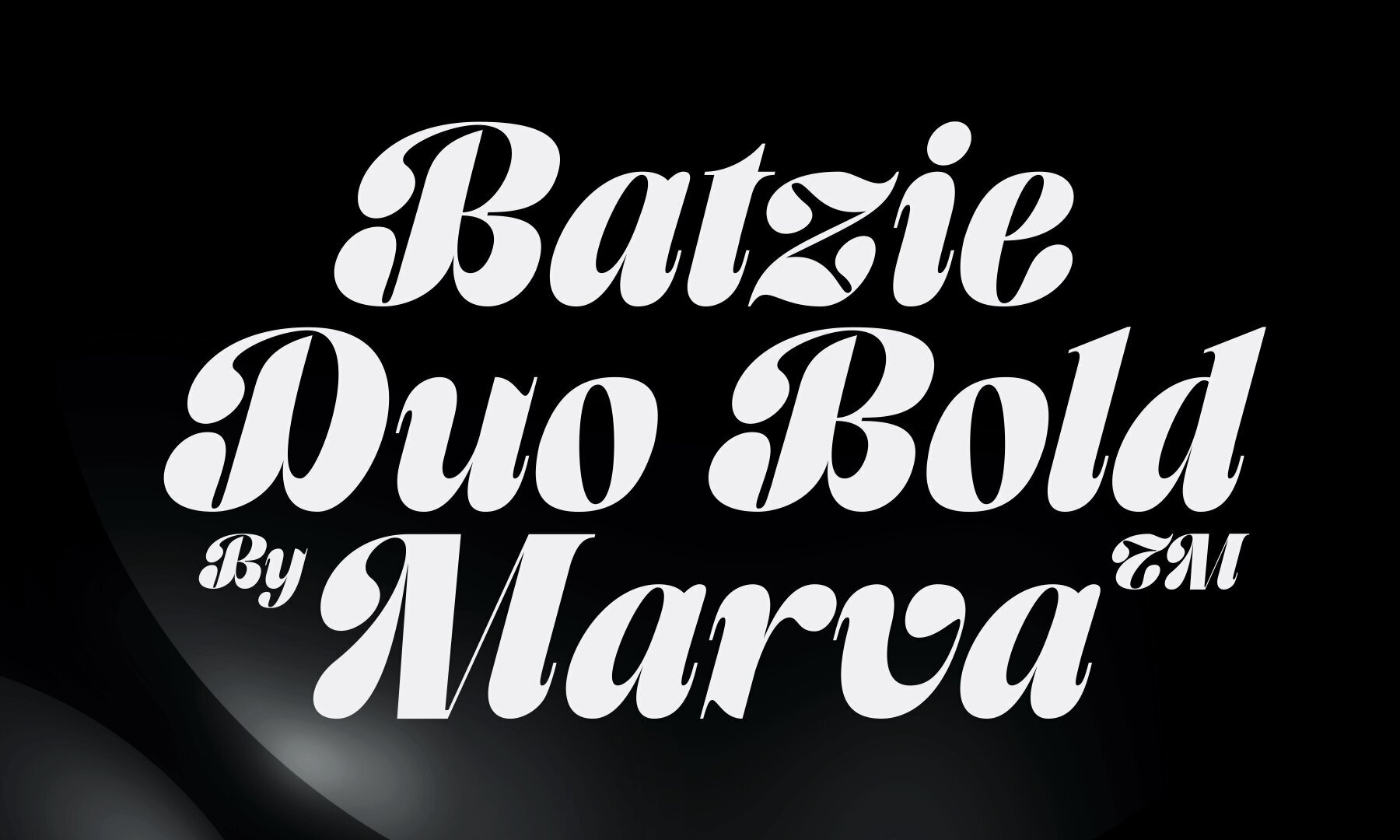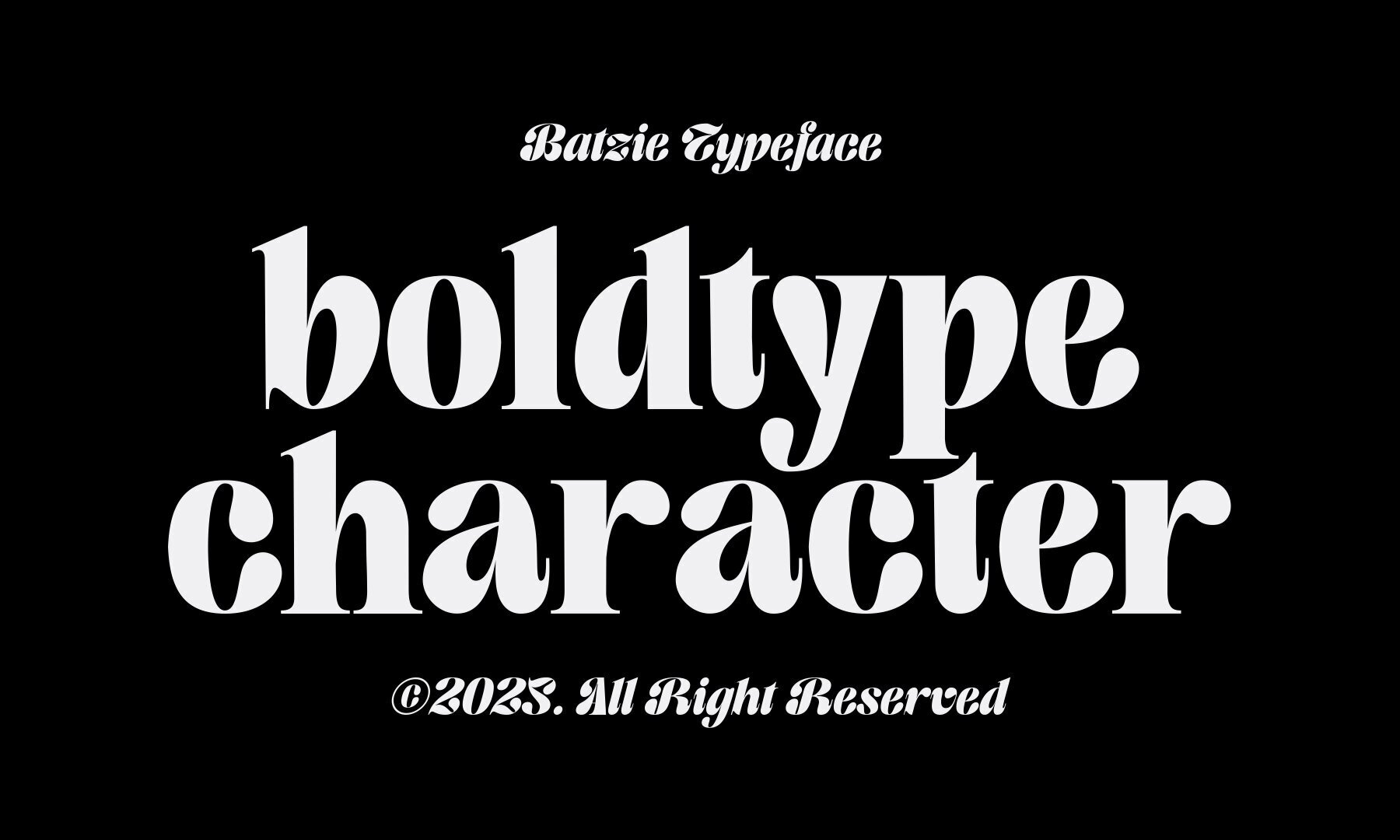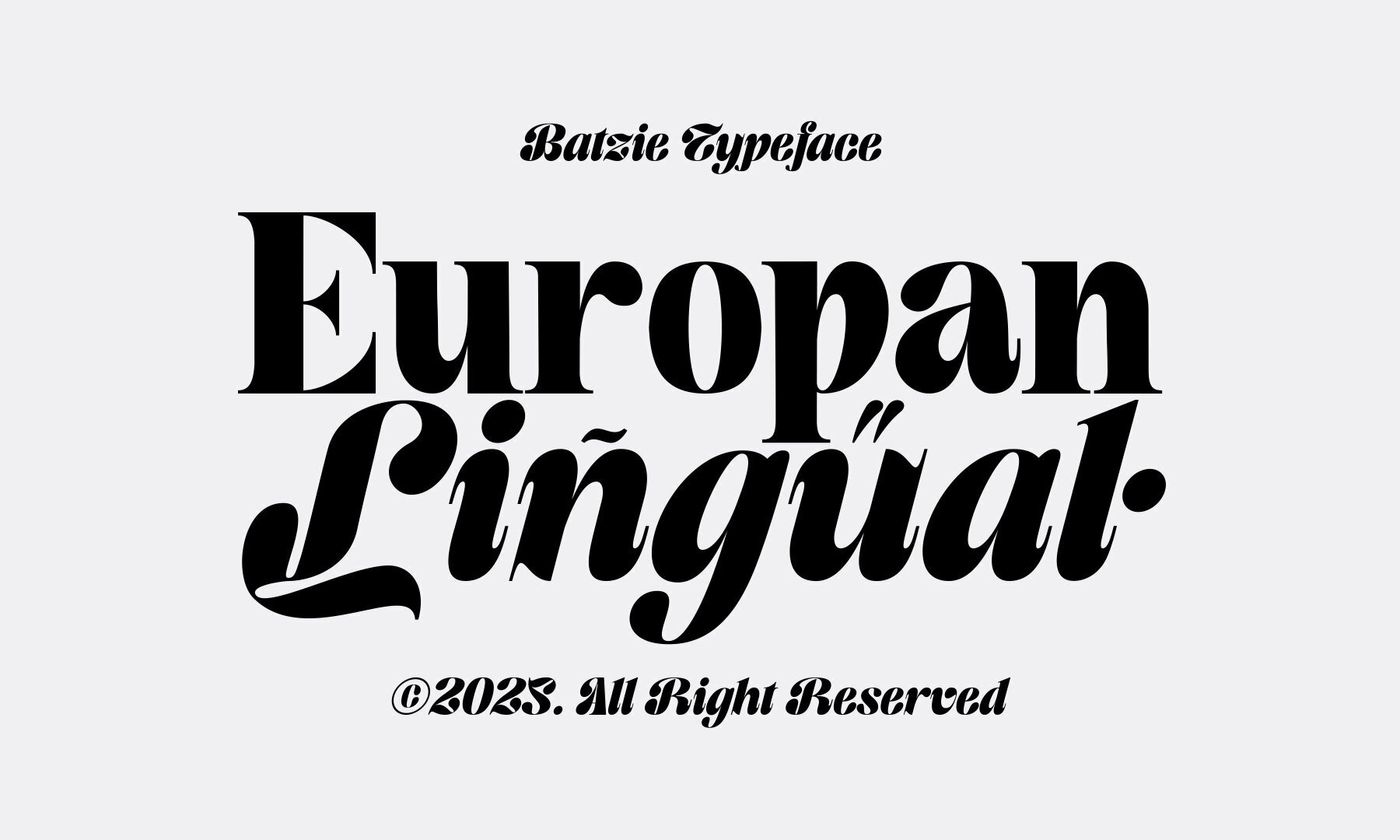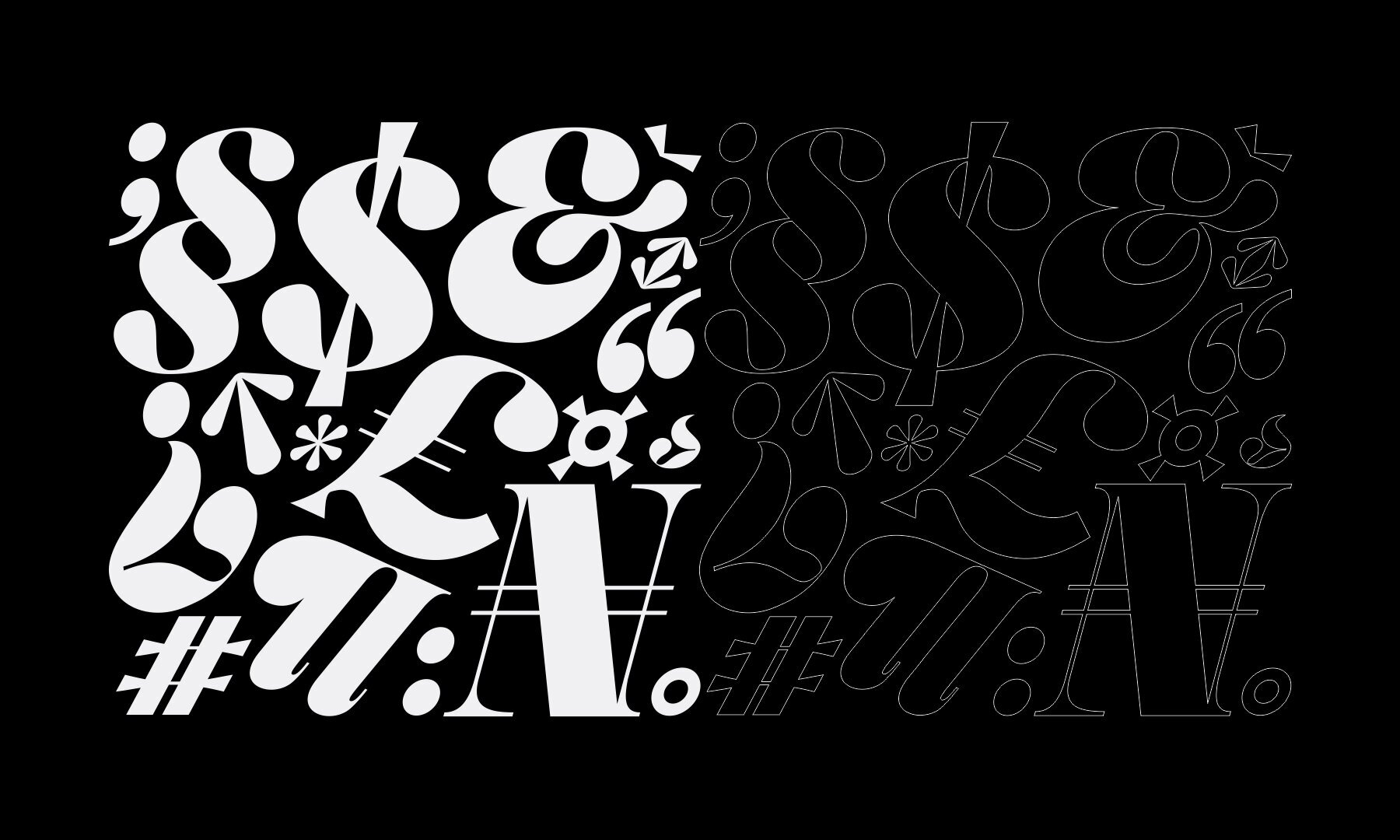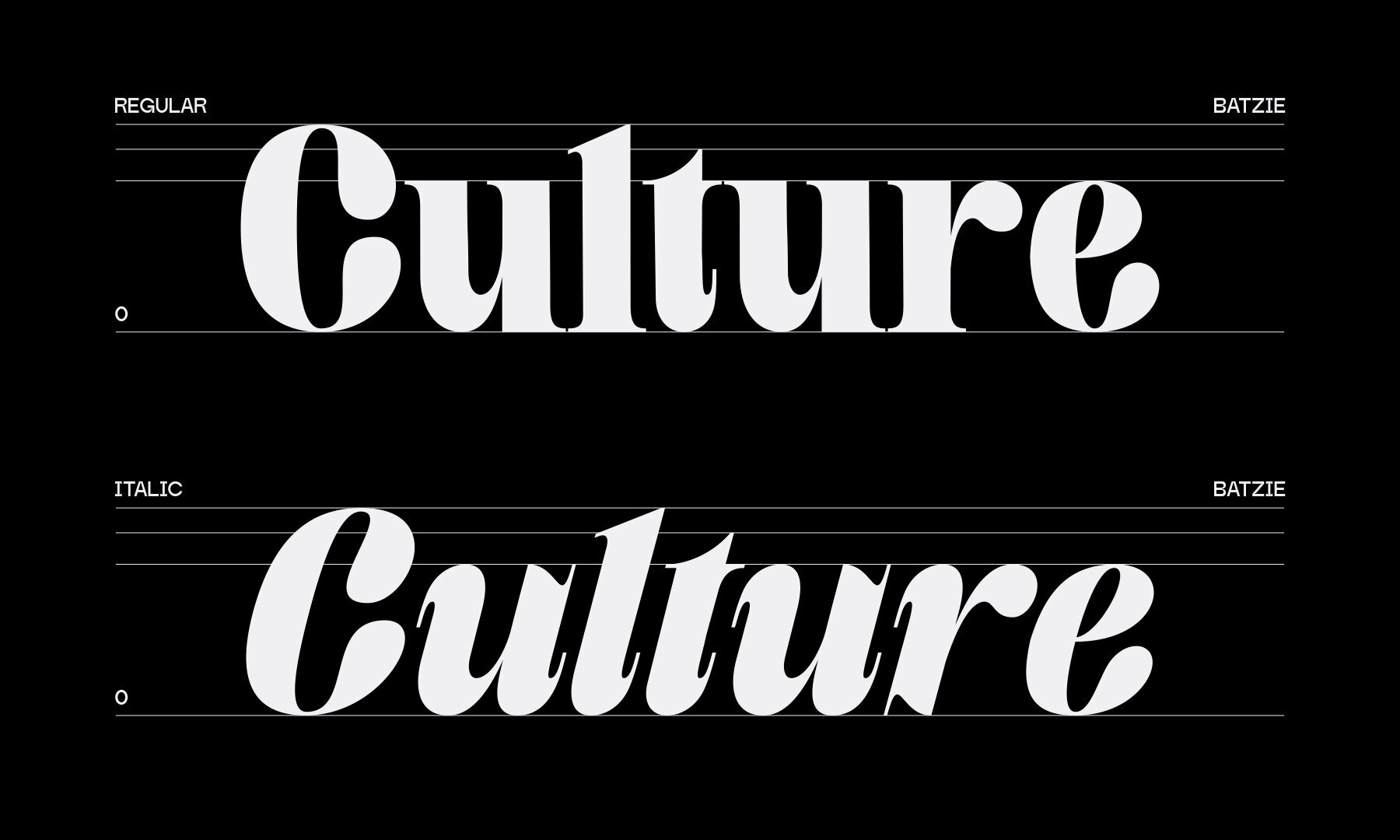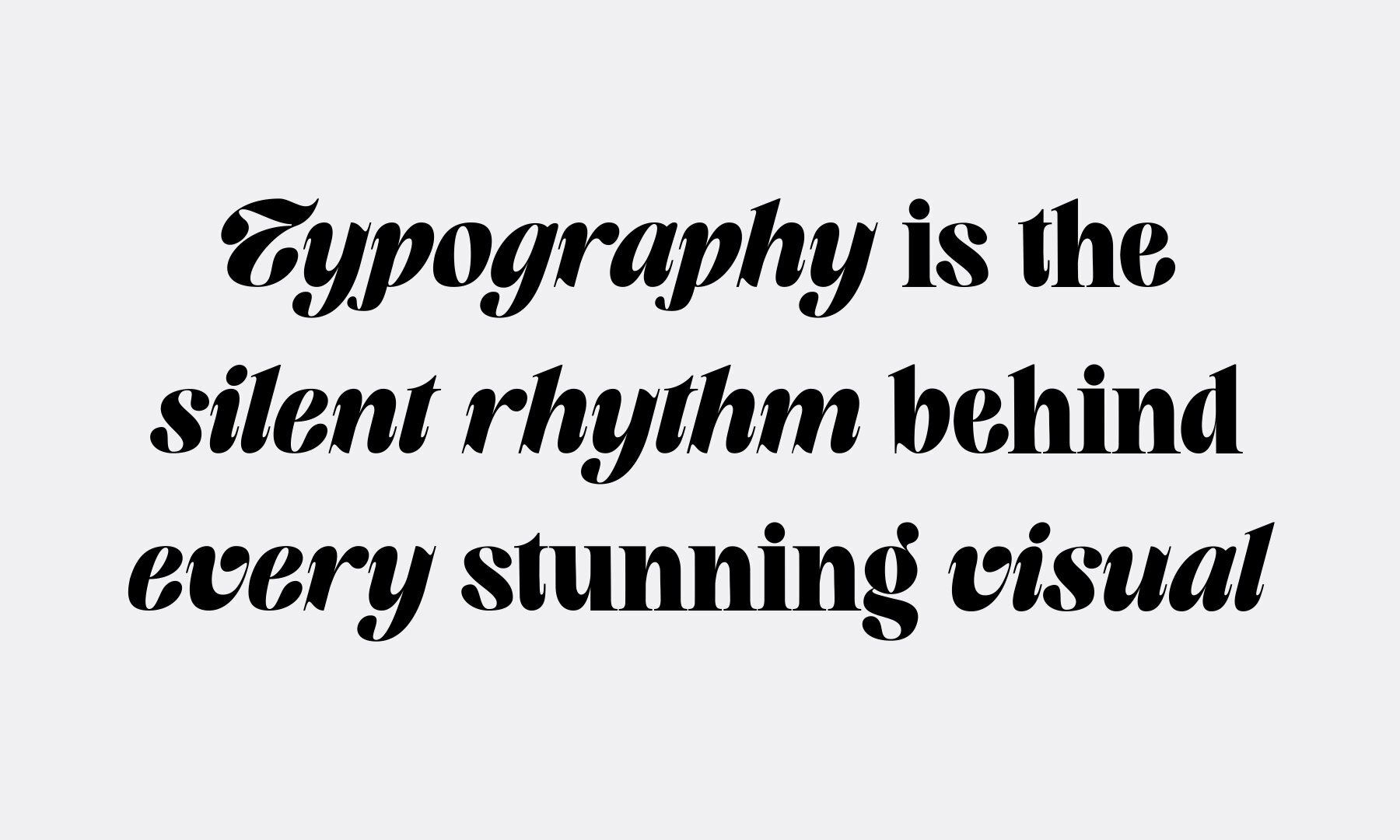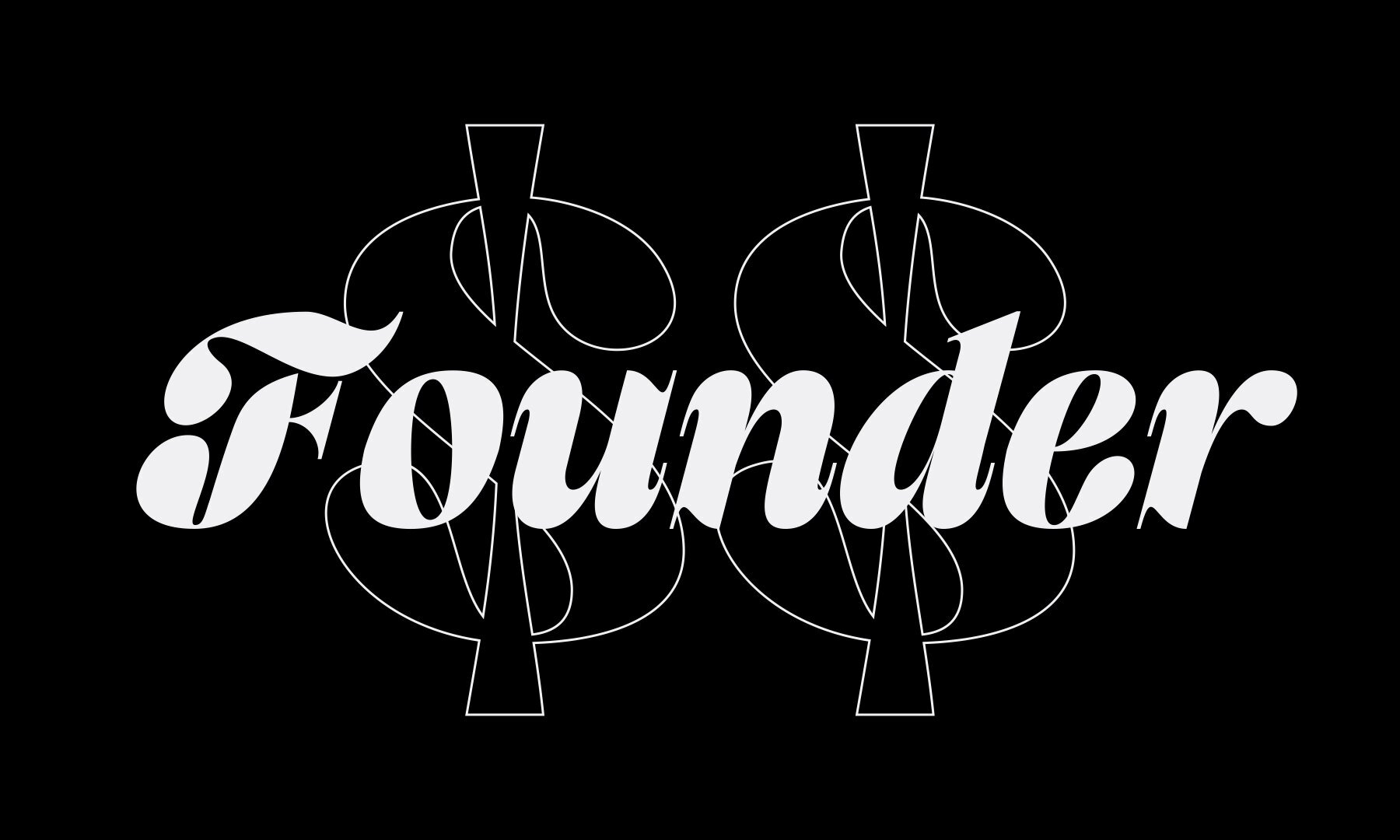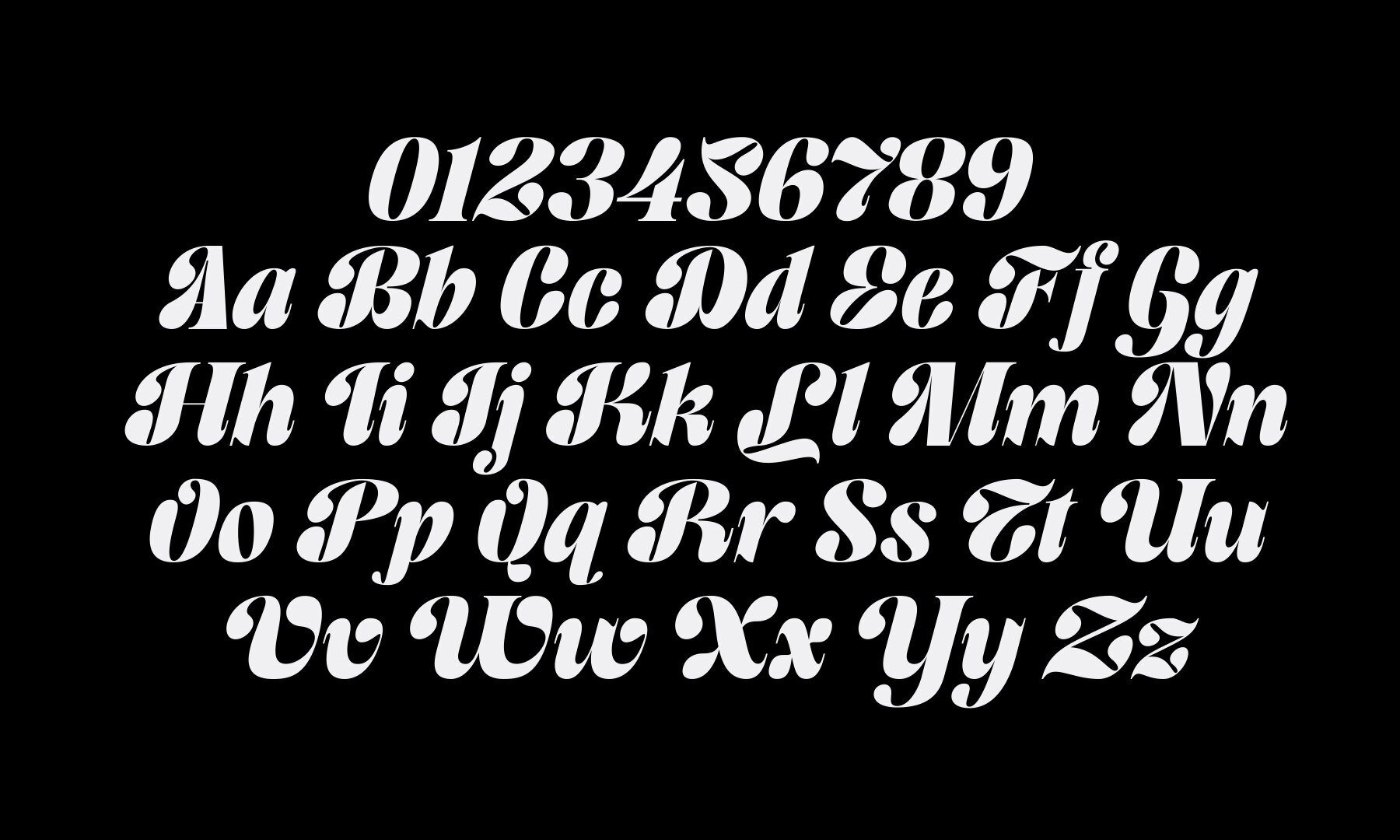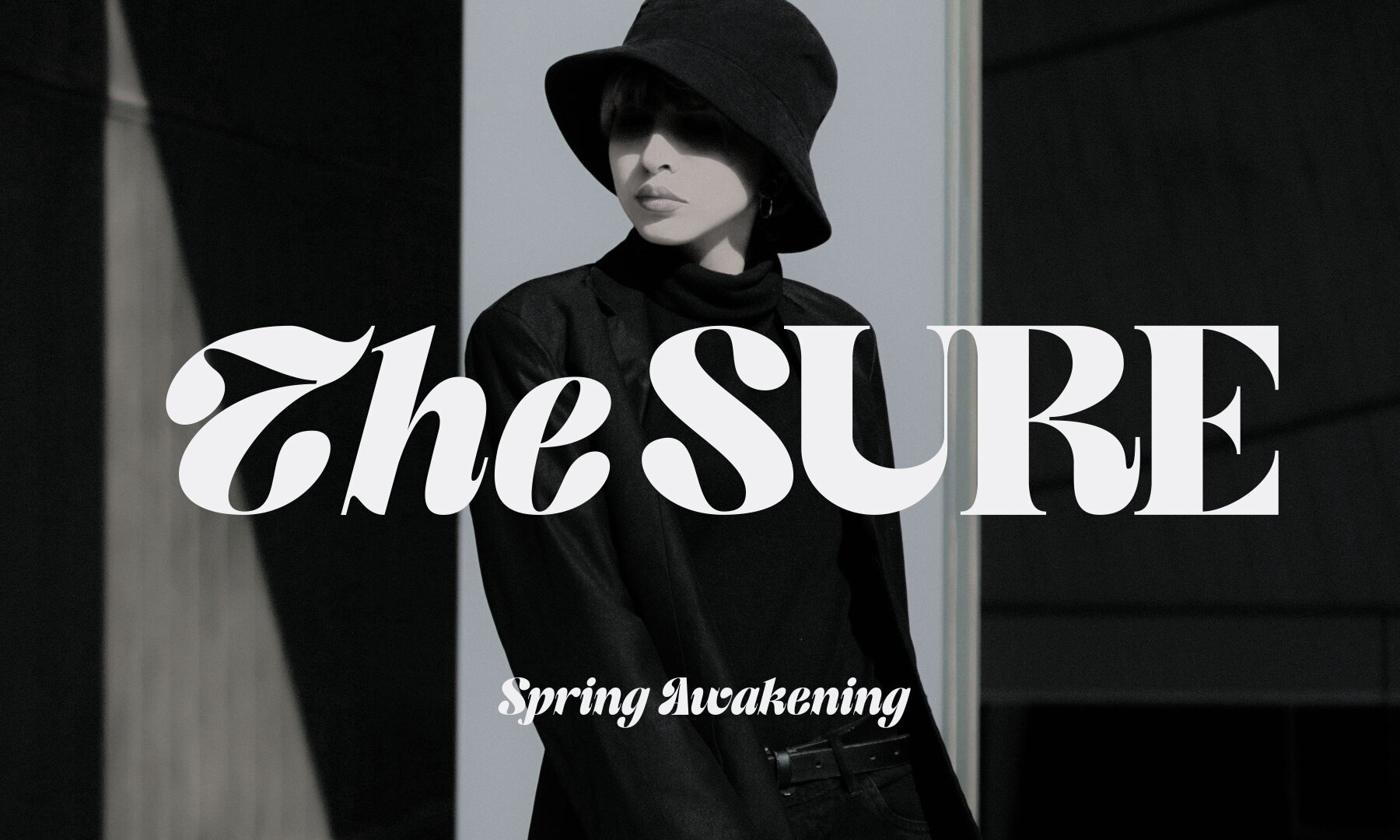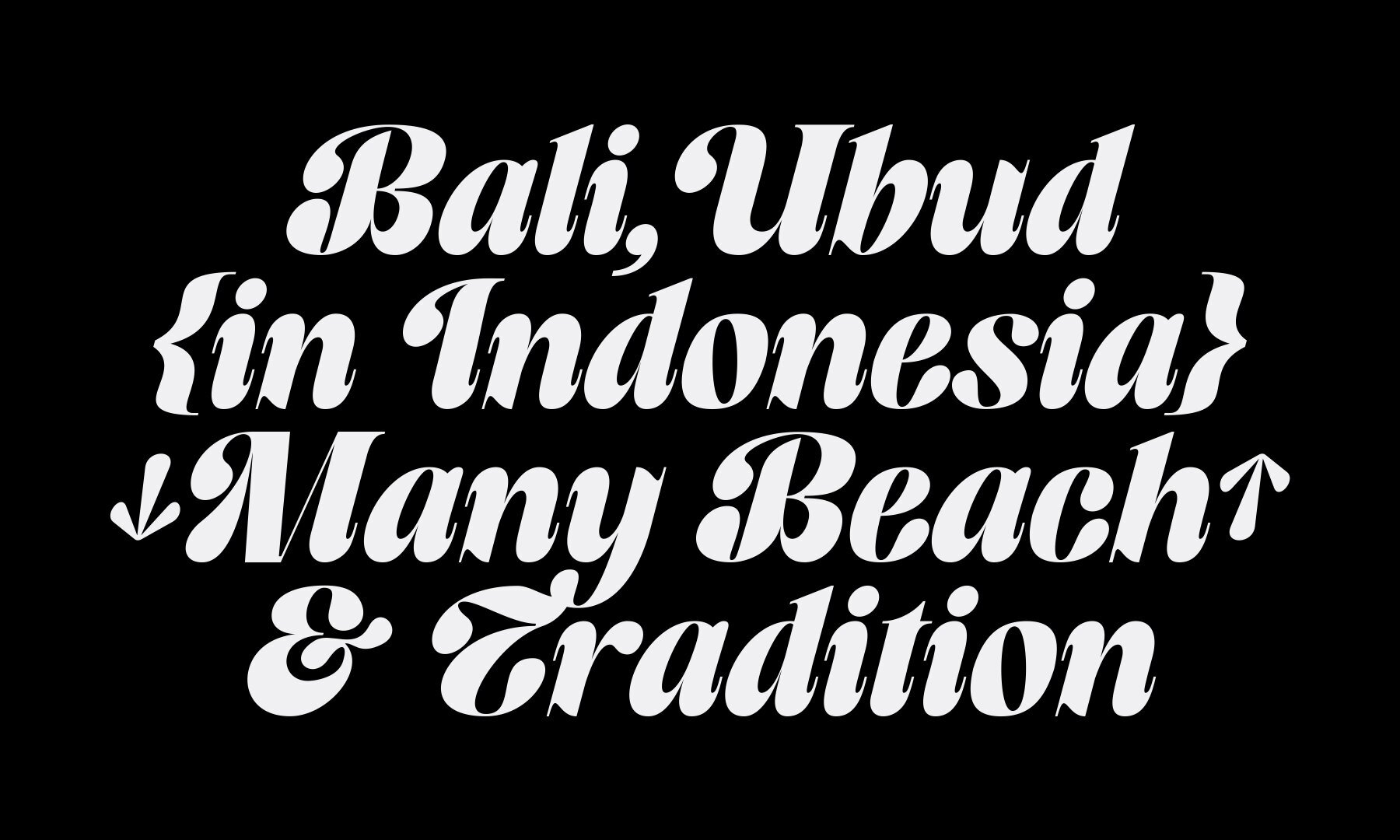
Batzie Font
Batzie offers a contemporary take on the classic serif display font. Its elegant and feminine aesthetics come through in flowing letterforms, crafted with gentle curves and delicate joins. This design captures the essence of authentic handwriting, with each stroke perfectly balanced to ensure legibility and style. The characters' subtle strokes and flourishes add a romantic, whimsical touch without overwhelming the design. With its soft, rounded shapes and slightly elongated ascenders and descenders, Batzie creates a natural rhythm that imparts an airy, luxurious quality to text. The italic variant of Batzie imbues a sense of graceful forward movement. Rich in personality, it is ideal for branding in beauty, fashion, and lifestyle sectors. Additionally, it enhances wedding invitations, feminine packaging, and elegant quotes.Batzie: Elegant Serif Display Font